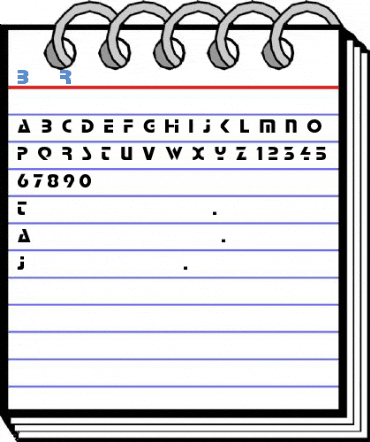
Babylon Regular Font
Copyright: This font is based on the background font used in the television show Babylon 5. Pretty to look at, but kinda hard to read if you're trying to find the local escape pod entrance in a panic. :*